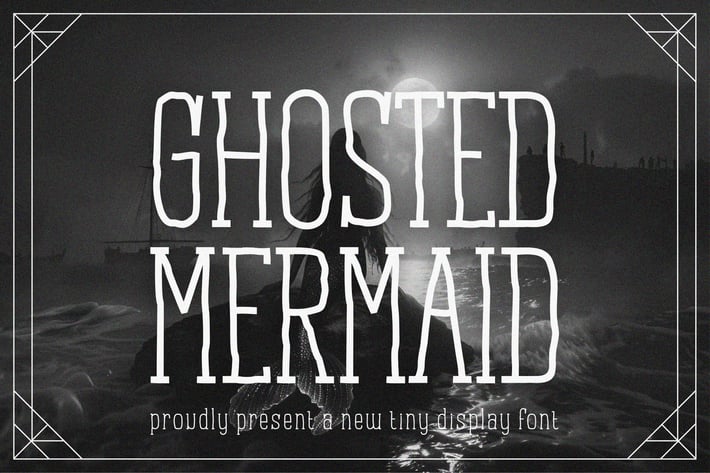
Ghosted Mermaid A New Tiny Display Font
Introducing Ghosted Mermaid A New Tiny Display Font is a modern, trendy, elegant and tiny display font. It has a unique character. It is perfect to be combined with invitation card designs, company logos, movie titles, movie names, business cards, book titles, brand names and various other designs.